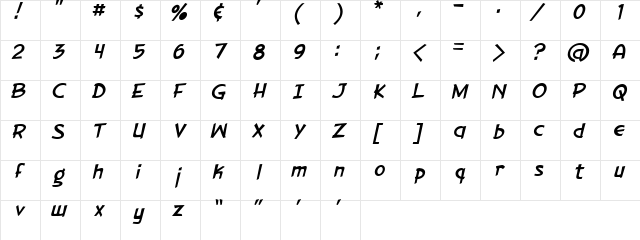
Gorilla Milkshake Italic Free Font
Gorilla Milkshake Italic
Design Context for Gorilla Milkshake
Gorilla Milkshake is a composed and adaptable typeface that performs quietly and consistently across a wide range of design contexts. The slanted form adds forward momentum and visual energy.
Pro Tip: Use Gorilla Milkshake for emphasis, pull quotes, and subheadings where its slanted energy can add rhythm to the layout.